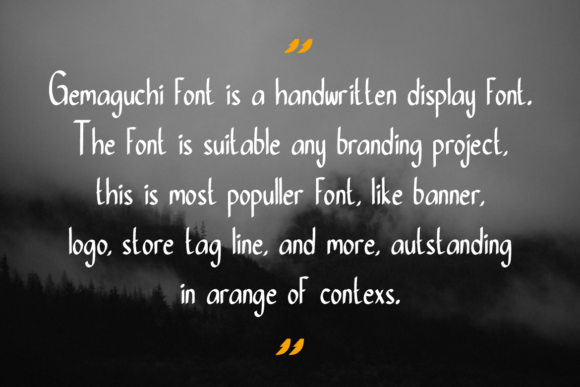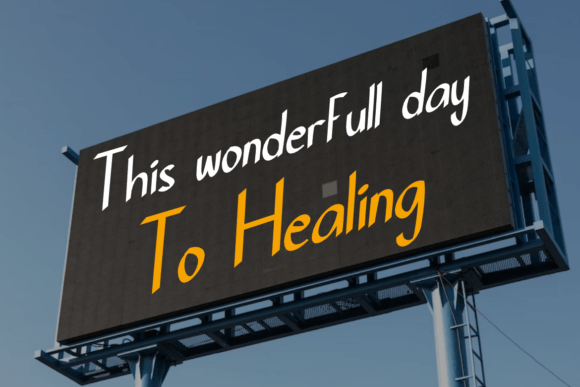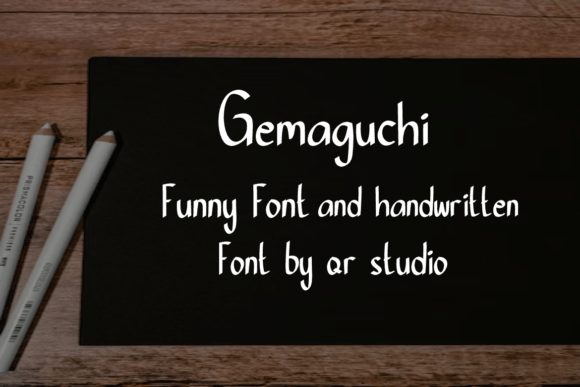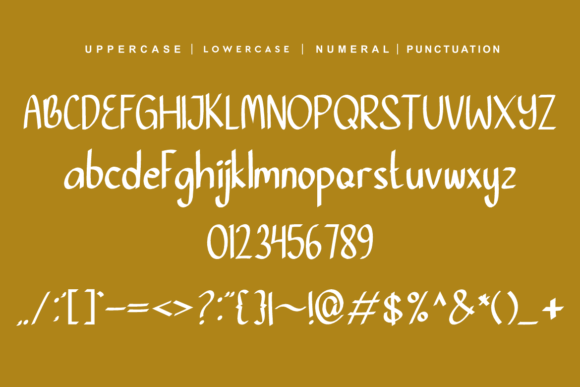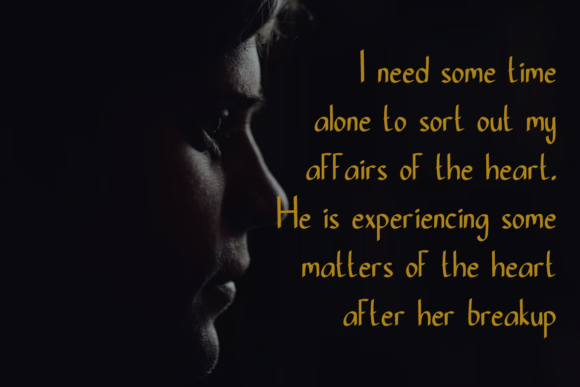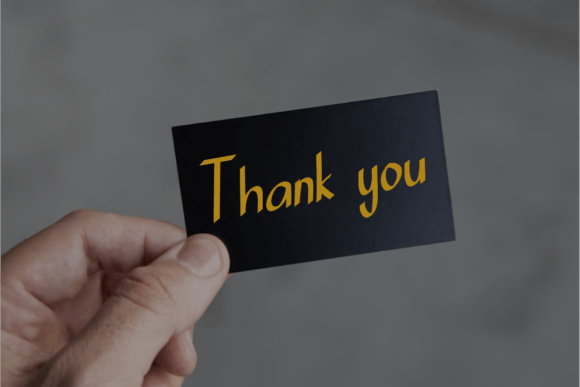
Introduction to Gemaguchi Font
Gemaguchi is a bold and authentic display font.
The font is suitable for any branding project like logo, sport, and many more Outstanding in a wide range of contexts.